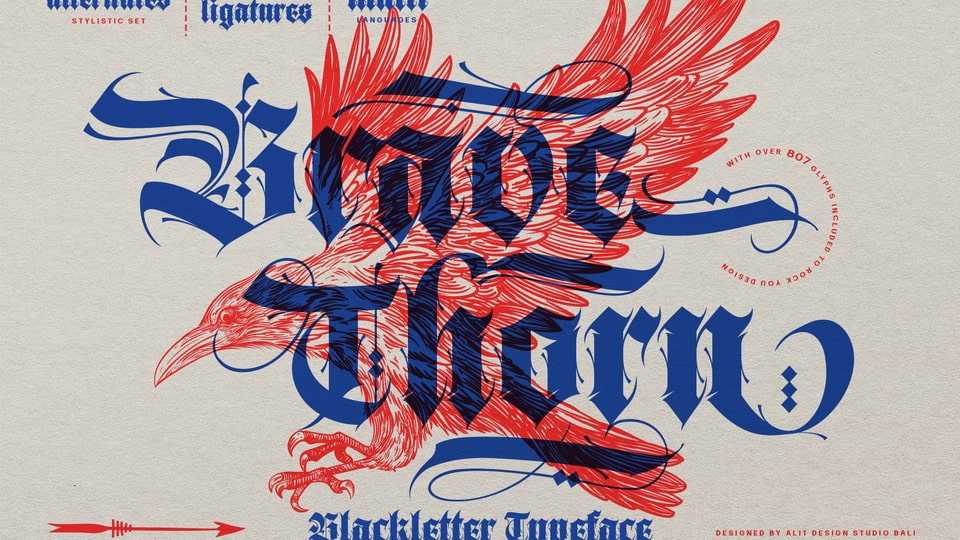
Download Brave Thorn font, a formidable blackletter typeface that commands attention with its bold strokes and intricate details. This font embodies strength and courage, making it perfect for headlines, logos, and branding that demand to be noticed.